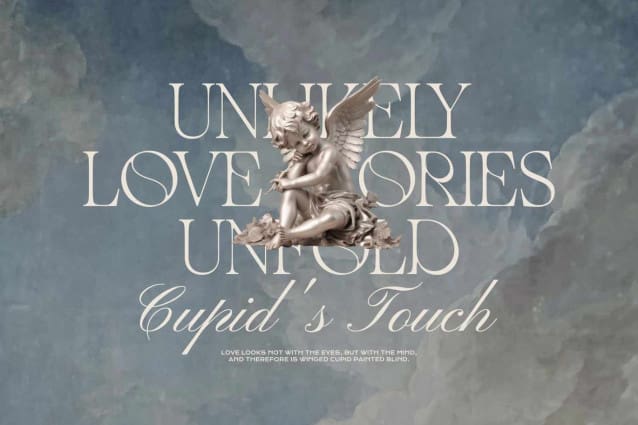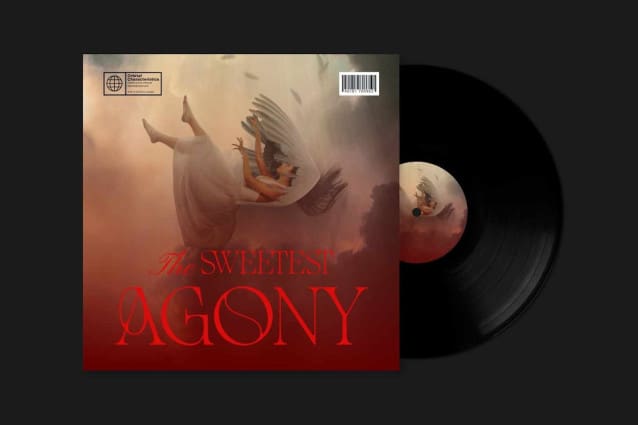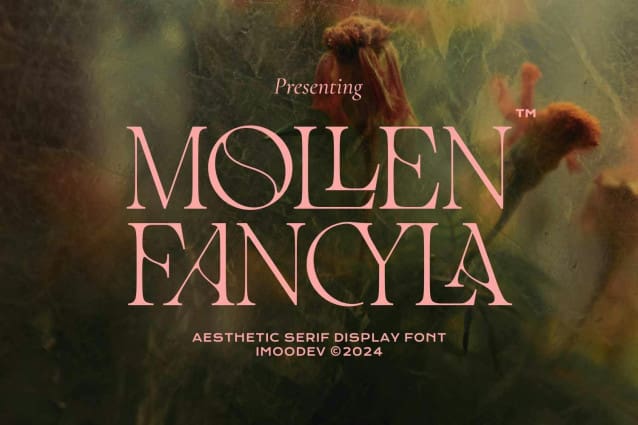
Mollen Fancyla Font
Mollen Fancyla Font is a modern serif font that perfectly combines beauty and feminine touch, infusing a touch of class and contemporary sophistication. Its graceful lines and modern aesthetic make it the perfect choice for projects that seek a balance between elegance and modernity and its soft curves in which each lettering embodies charm, giving your work a magnificent look and attractive.
A versatile font that works in both uppercase and lowercase, suitable for a wide variety of projects such as display font for headlines, logo fonts, invitations, branding, book covers, magazine layouts, product packaging, product mockups, posters, labels, editorials, art deco and any type of advertising purpose.